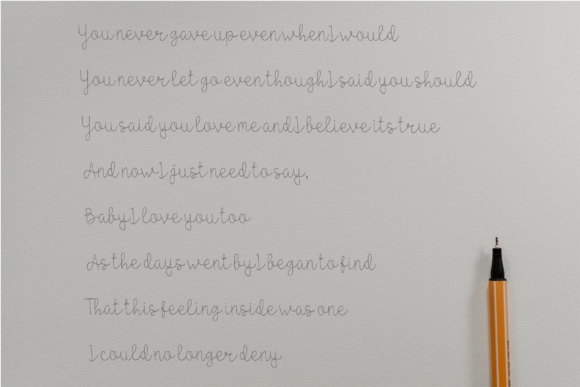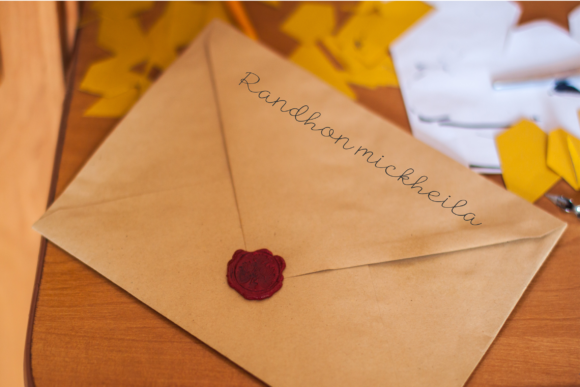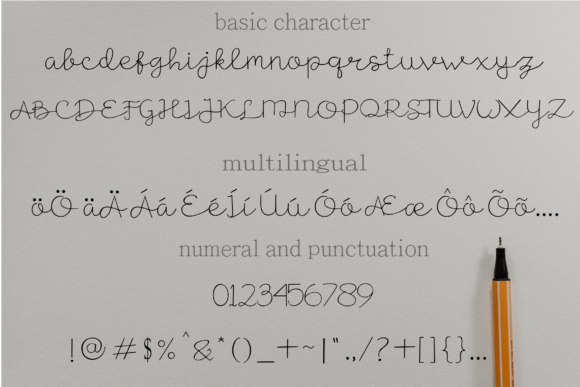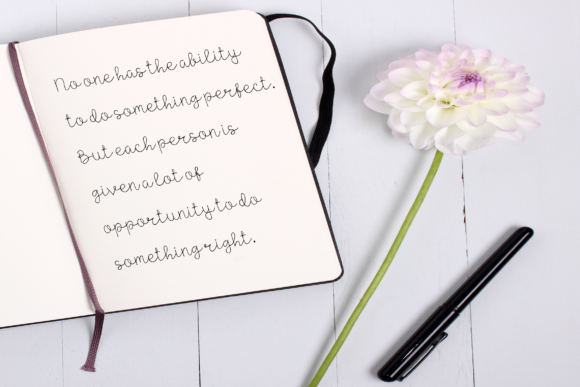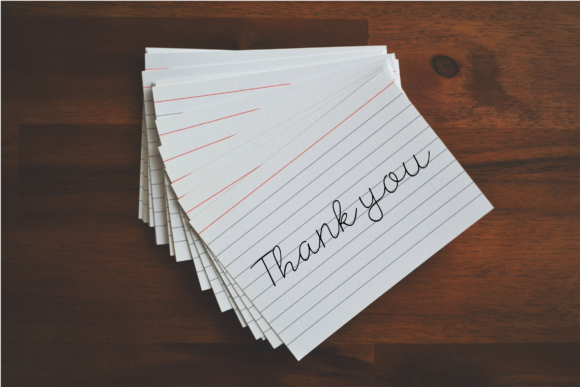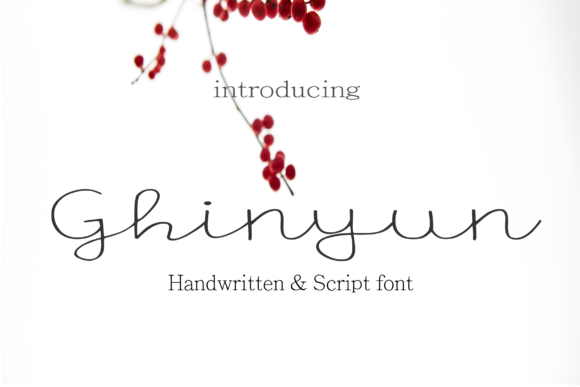
Ghinyun Font: The Ultimate Choice for Creative Designers and Crafters
Are you a designer or crafter looking for a unique and captivating font to elevate your creative projects? Look no further than Ghinyun Font, a round and cute script font that’s taking the design world by storm. With its authentic feel and versatility, Ghinyun is the perfect choice for creating stunning wedding invitations, beautiful stationery art, eye-catching social media posts, and adorable greeting cards.
The Charm of Ghinyun Font
Ghinyun Font is a script font that exudes a sense of warmth and friendliness. Its round and cute design makes it perfect for projects that require a touch of playfulness and whimsy. The font’s authentic feel is reminiscent of handwritten scripts, making it an excellent choice for designers and crafters who want to add a personal touch to their work.
What Makes Ghinyun Font So Special?
So, what sets Ghinyun Font apart from other fonts? Here are a few reasons why designers and crafters are falling in love with this beautiful script font:
• Unique and Quirky Design: Ghinyun Font features a distinctive and quirky design that’s sure to grab attention. Its round and cute appearance makes it perfect for projects that require a touch of playfulness.
• Authentic Feel: The font’s authentic feel is reminiscent of handwritten scripts, making it an excellent choice for designers and crafters who want to add a personal touch to their work.
• Versatile: Ghinyun Font is incredibly versatile and can be used for a wide range of projects, from wedding invitations and stationery art to social media posts and greeting cards.
• Easy to Read: Despite its playful design, Ghinyun Font is easy to read, making it perfect for projects that require a clear and legible font.
Ideas for Using Ghinyun Font
Now that we’ve covered the charm and uniqueness of Ghinyun Font, let’s explore some ideas for using this beautiful script font:
• Wedding Invitations: Create stunning wedding invitations that set the tone for a romantic and whimsical celebration.
• Stationery Art: Use Ghinyun Font to create beautiful stationery art, including notecards, journals, and planners.
• Social Media Posts: Add a touch of playfulness to your social media posts with Ghinyun Font. It’s perfect for creating eye-catching graphics and quotes.
• Greeting Cards: Create adorable greeting cards for special occasions, such as birthdays, holidays, and anniversaries.
Tips for Getting the Most Out of Ghinyun Font
To get the most out of Ghinyun Font, here are a few tips to keep in mind:
• Experiment with Colors: Ghinyun Font looks great in a variety of colors, so don’t be afraid to experiment and find the perfect hue for your project.
• Mix and Match with Other Fonts: Combine Ghinyun Font with other fonts to create a unique and visually appealing design.
• Use it for Headings and Titles: Ghinyun Font is perfect for headings and titles, so use it to add a touch of personality to your project.
In conclusion, Ghinyun Font is a beautiful and versatile script font that’s perfect for designers and crafters looking to add a touch of whimsy and playfulness to their projects. With its unique and quirky design, authentic feel, and ease of use, Ghinyun Font is sure to become a favorite in your font collection. So why wait? Get inspired by Ghinyun Font and start creating gorgeous wedding invitations, beautiful stationery art, eye-catching social media posts, and adorable greeting cards today!